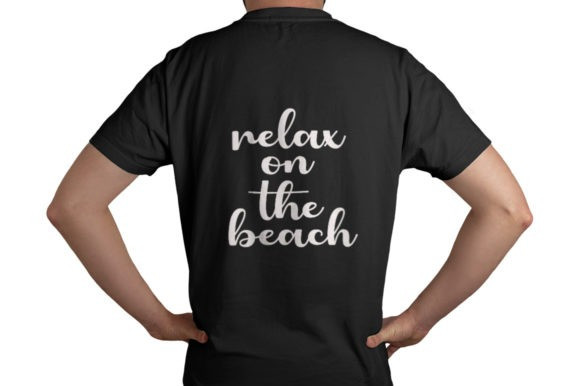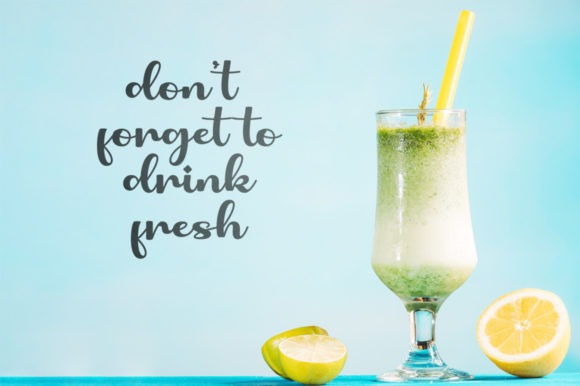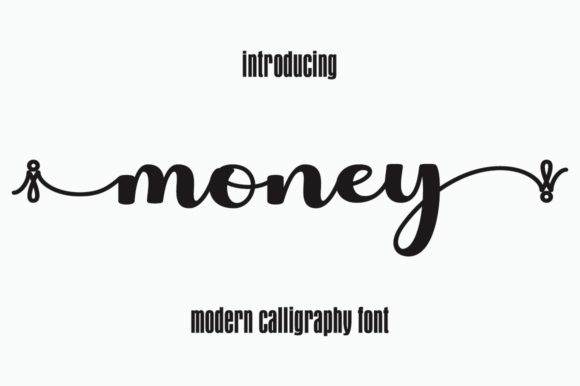
Money Script Font
Money Script Font is a lovely and chic script font. No matter the topic, this font will be an incredible asset to your fonts’ library, as it has the potential to elevate any creation.